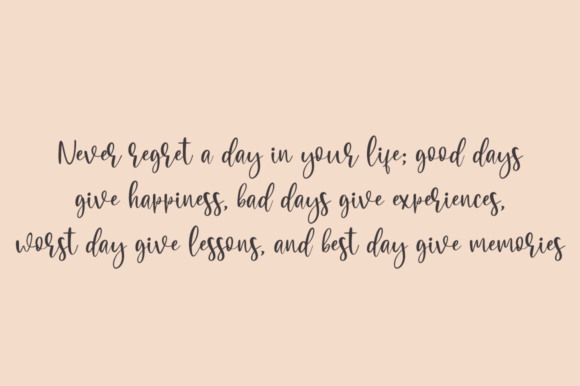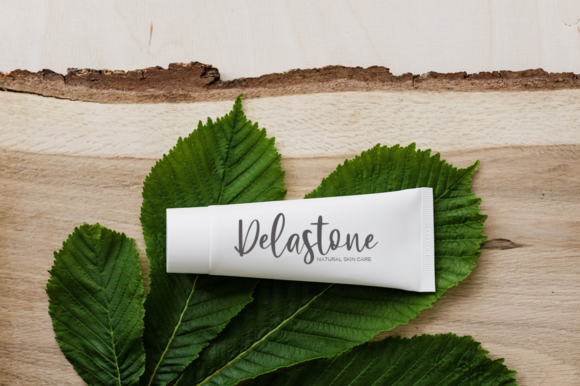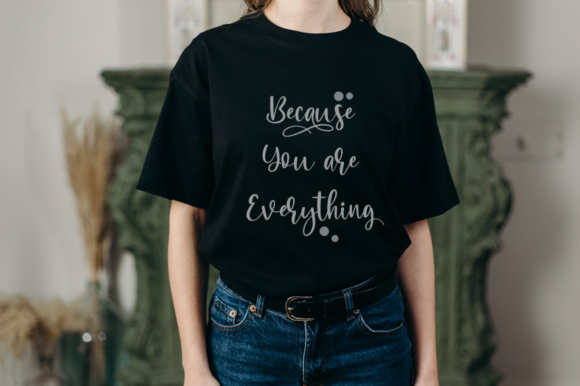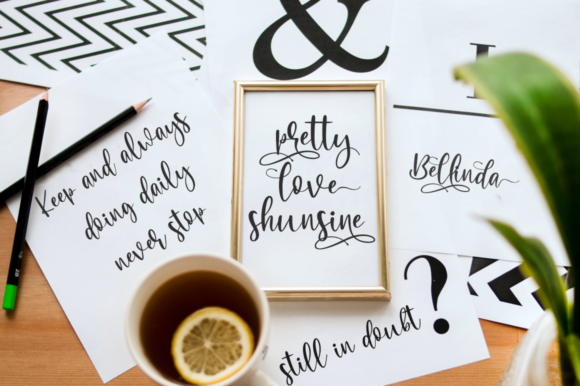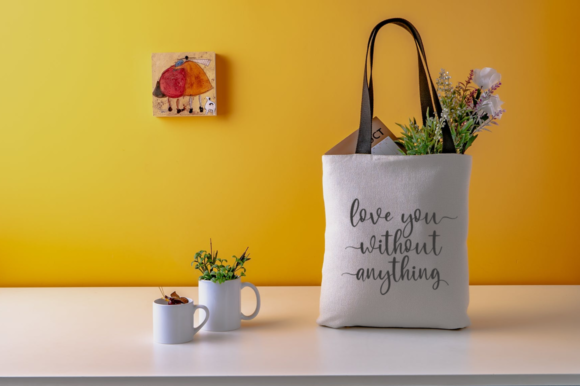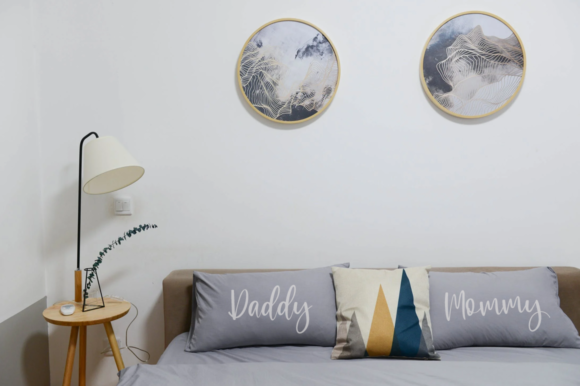
Introducing Elmore Font: Elevate Your Designs with Elegance and Flair
In the world of typography, few fonts manage to capture the essence of elegance and sophistication as effortlessly as Elmore Font. This beautiful, handwritten typeface has been making waves among designers and crafters alike, and for good reason. Elmore Font feels incredibly elegant and flowing, making it the perfect addition to a wide range of design projects, from wedding invitations and thank you cards to quotes, greeting cards, logos, and business cards.
The Characteristics of Elmore Font
So, what sets Elmore Font apart from other typefaces? The answer lies in its unique combination of features, including:
- Varying Baseline: Elmore Font boasts a varying baseline that adds a touch of organic, handwritten charm to any design. This subtle variation creates a sense of movement and fluidity, making the text feel more dynamic and engaging.
- Smooth Lines: The lines in Elmore Font are smooth and flowing, giving the typeface a sense of elegance and refinement. This smoothness also makes it easy to read, even at smaller font sizes.
- Gorgeous Glyphs: Elmore Font features a range of beautiful glyphs that add an extra layer of visual interest to any design. From flourishes and swashes to intricate details and ornaments, these glyphs provide endless opportunities for creative expression.
- Stunning Alternates: One of the standout features of Elmore Font is its range of stunning alternates. These alternative characters allow designers to add an extra touch of personality to their work, creating a truly unique and customized look.
Uses for Elmore Font
So, how can you use Elmore Font in your designs? The possibilities are endless, but here are a few ideas to get you started:
- Wedding Invitations: Elmore Font is a popular choice for wedding invitations, and it’s easy to see why. Its elegant, flowing lines and beautiful glyphs create a romantic and sophisticated look that’s perfect for the big day.
- Thank You Cards: Add a touch of elegance to your thank you cards with Elmore Font. Its smooth lines and gorgeous glyphs make it the perfect choice for expressing gratitude in style.
- Quotes and Greeting Cards: Elmore Font is also a great choice for quotes and greeting cards. Its flowing lines and beautiful alternates create a sense of drama and flair, making it perfect for adding a touch of personality to any message.
- Logos and Business Cards: If you’re looking for a font that will help your business stand out, Elmore Font is a great choice. Its unique combination of elegance and flair makes it perfect for logos, business cards, and other marketing materials.
Why Designers and Crafters Love Elmore Font
So, why do designers and crafters love Elmore Font? The answer lies in its versatility, elegance, and creative possibilities. Here are just a few reasons why Elmore Font has become a favorite among designers and crafters:
- Easy to Read: Despite its elegant, flowing lines, Elmore Font is easy to read, even at smaller font sizes. This makes it perfect for a wide range of design projects, from body text to headings.
- Highly Versatile: Elmore Font is highly versatile, making it suitable for a wide range of design projects, from digital designs to print materials.
- Unique and Customizable: With its range of gorgeous glyphs and stunning alternates, Elmore Font offers endless opportunities for creative expression and customization.
In conclusion, Elmore Font is a beautiful, elegant typeface that’s perfect for designers and crafters looking to add a touch of sophistication and flair to their work. With its varying baseline, smooth lines, gorgeous glyphs, and stunning alternates, Elmore Font is sure to become a favorite in your design arsenal.